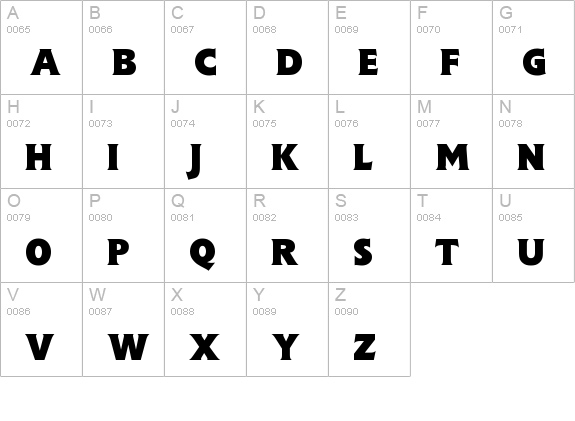
Flare Gothic BOLD Font Details
Flare Gothic BOLD is a strong, high-contrast variant in the Flare typeface family \xE2\x80\x94 well suited to headlines, attention-grabbing titles, and strong calls-to-action.
Flare Gothic BOLD is a striking and bold font that exudes modernity and sophistication. With its sharp lines and distinctive flair, this typeface is perfect for making a statement in any design project. Whether you're creating a poster, logo, or branding materials, Flare Gothic BOLD will add a touch of boldness and style. This font is not only visually stunning but also versatile, making it suitable for a wide range of design applications. Its bold and strong presence commands attention and ensures that your message is conveyed with impact. Best of all, Flare Gothic BOLD is available for free download at FontsMarket.com. So why wait? Add this eye-catching font to your collection today and take your designs to the next level!